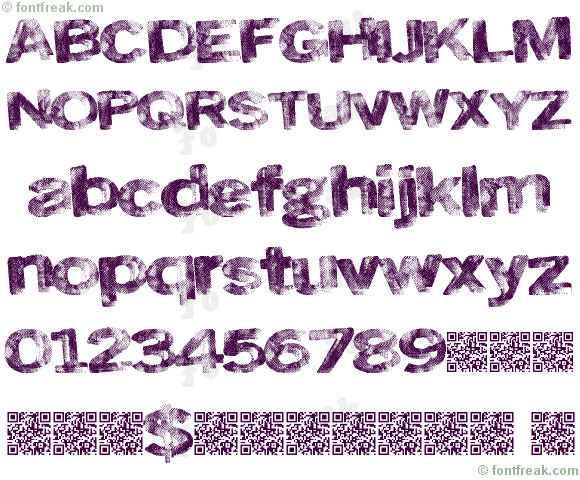
RoadSkin
About RoadSkin
RoadSkin by Xerographer Fonts is a distinctive display typeface that exudes a rugged and textured aesthetic, making it a standout choice for various creative projects. This font features a unique, weathered appearance that captures the essence of old road signs, blending a casual feel with a touch of vintage charm. The stroke weight varies throughout the characters, providing an organic look that enhances its artistic appeal. The contrast is subtle, allowing for versatility in design, while the spacing is balanced, ensuring readability across different applications.
Ideal for a range of creative uses, RoadSkin shines in contexts where a bold statement is desired. It works exceptionally well for movie posters, capturing attention with its eye-catching style. Additionally, it can elevate restaurant menus, giving them a distinctive character that draws in customers. The font is also suitable for branding materials, especially for businesses seeking to convey a sense of authenticity and creativity. Furthermore, its unique texture makes it perfect for event invitations, particularly those with a casual or rustic theme.
What makes the RoadSkin font stand out is its ability to evoke a sense of nostalgia while remaining modern and versatile. Its unique texture and bold character make it a memorable choice that can transform any design into a work of art. Don't miss out—explore the RoadSkin font free download today and bring your creative visions to life.